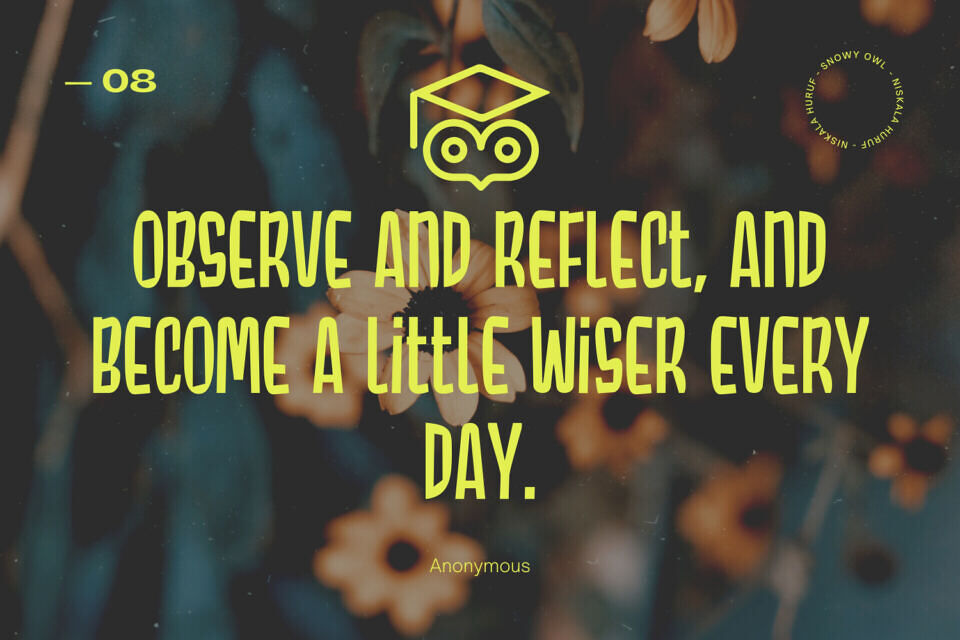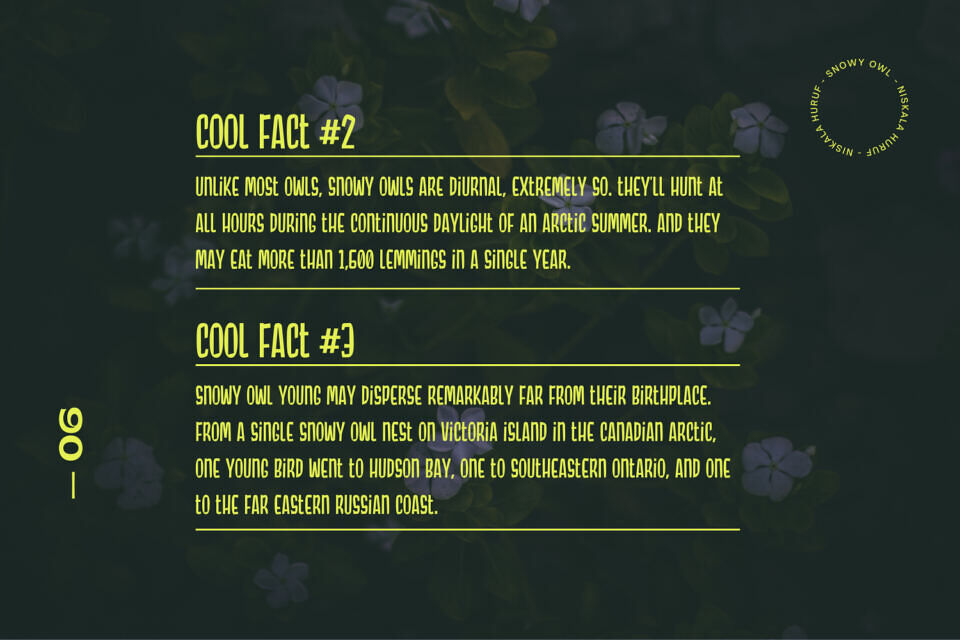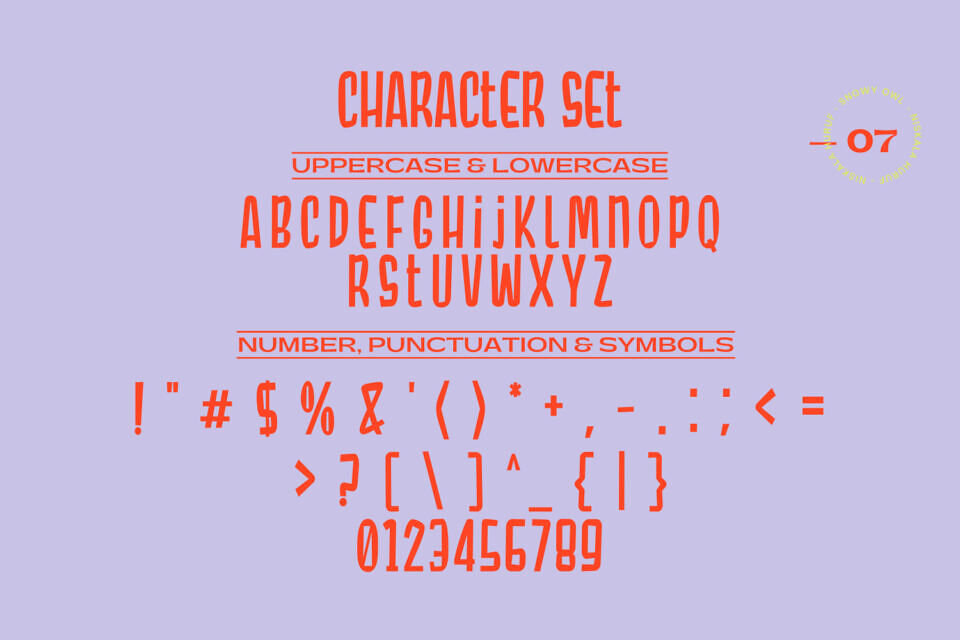
Snowy Owl is a cute, joyful and fun display font. Whether you use it for cartoon related designs, children games or just any creation that requires a lovely touch, this font will be an amazing choice.